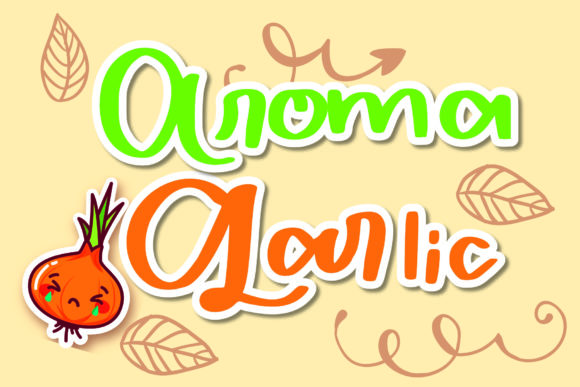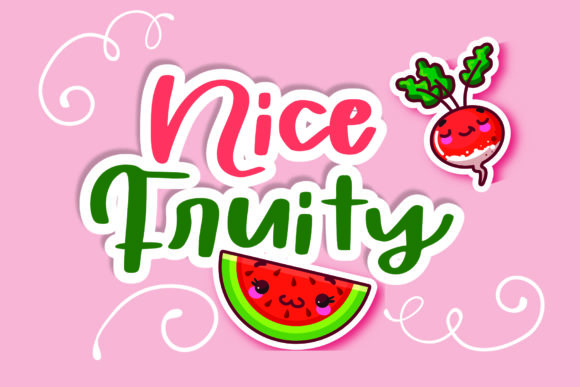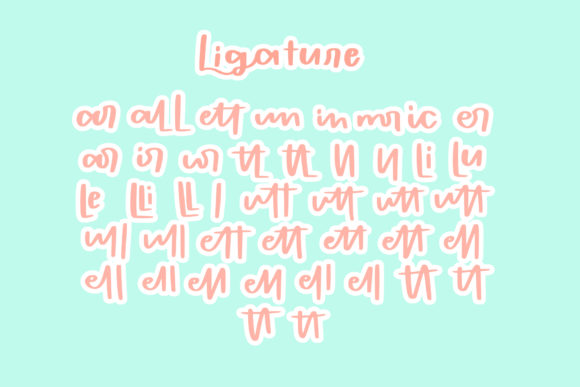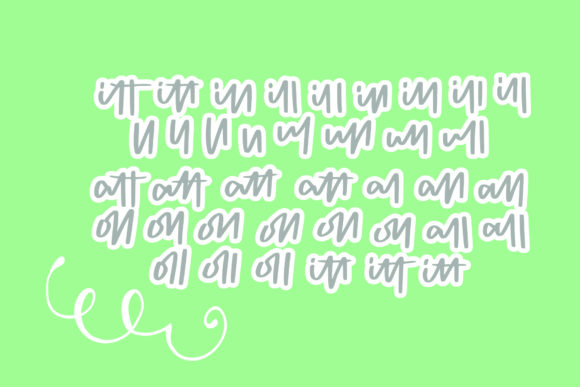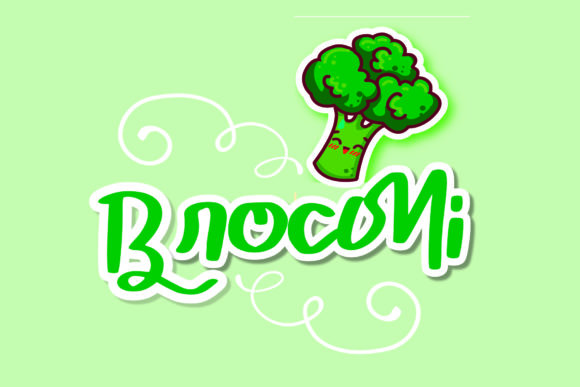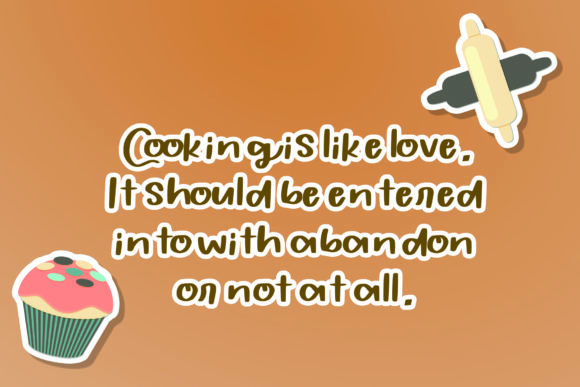
Aroma Garlic Font: Add a Dash of Playfulness to Your Designs
Are you tired of using the same old fonts in your designs? Look no further than Aroma Garlic Font, a fun and quirky display font that’s sure to add a dash of playfulness to your projects. With its unique and creative style, Aroma Garlic is perfect for designers and crafters who want to make their work stand out from the crowd.
What is Aroma Garlic Font?
Aroma Garlic Font is a display font that’s designed to make a statement. Its playful and whimsical style is reminiscent of handwritten fonts, but with a modern twist that makes it perfect for use in a variety of design projects. The font features bold lines, irregular shapes, and a dash of personality that will add a touch of fun to any design.
What Can I Use Aroma Garlic Font For?
Aroma Garlic Font is a versatile font that can be used in a wide range of design projects, including:
- Branding: Use Aroma Garlic Font to create a unique and memorable brand identity that will set your business apart from the competition.
- Logos: The font’s bold and playful style makes it perfect for use in logos that need to make a statement.
- Stationery: Add a touch of personality to your stationery with Aroma Garlic Font, perfect for use in letterheads, invoices, and more.
- Business Cards: Make your business cards stand out with Aroma Garlic Font, a great way to add a dash of personality to your professional credentials.
- Flyers: Use Aroma Garlic Font to create eye-catching flyers that will grab attention and leave a lasting impression.
Why Choose Aroma Garlic Font?
So why choose Aroma Garlic Font over other fonts? Here are just a few reasons why this font stands out:
- Unique Style: Aroma Garlic Font has a unique and playful style that’s unlike any other font on the market.
- Highly Versatile: The font can be used in a wide range of design projects, from branding and logos to stationery and flyers.
- Easy to Read: Despite its playful style, Aroma Garlic Font is easy to read and understand, making it perfect for use in body text as well as headlines.
- Fun and Engaging: The font’s playful style is sure to add a dash of fun and personality to any design, making it perfect for use in projects that need to engage and entertain.
Tips for Using Aroma Garlic Font
Here are a few tips for getting the most out of Aroma Garlic Font:
- Use it Sparingly: Aroma Garlic Font is a bold and playful font, so use it sparingly to avoid overwhelming your design.
- Pair it with Other Fonts: The font pairs well with a range of other fonts, so experiment with different combinations to find the perfect look for your design.
- Experiment with Colors: Aroma Garlic Font looks great in a range of colors, so don’t be afraid to experiment and find the perfect color scheme for your design.
| Font Name | Aroma Garlic Font |
| Author | goodigital |
Aroma Garlic Font is a fun and quirky display font that’s perfect for designers and crafters who want to add a dash of playfulness to their designs. With its unique style, versatility, and ease of use, this font is sure to become a favorite in your design toolkit. So why not give it a try and see how it can elevate your designs to the next level?